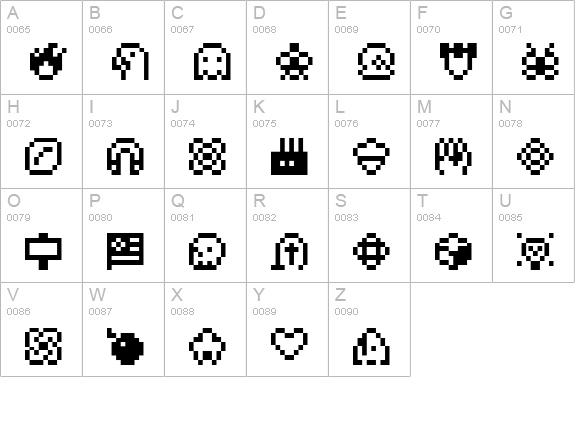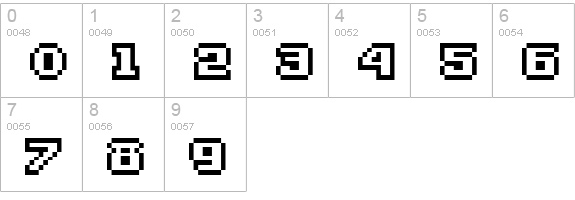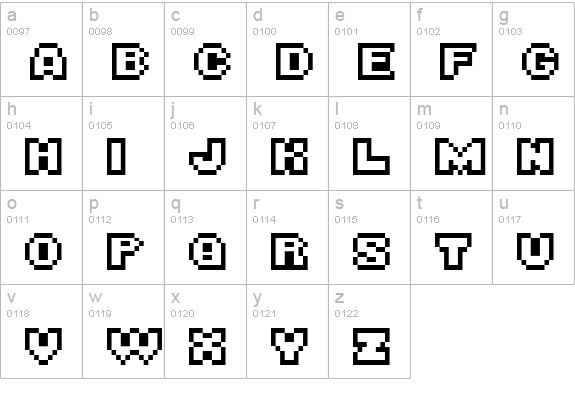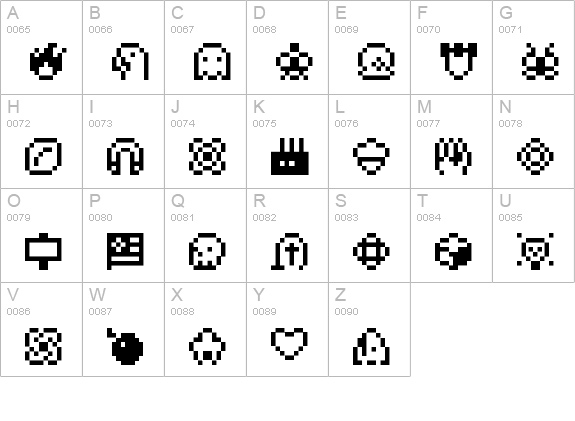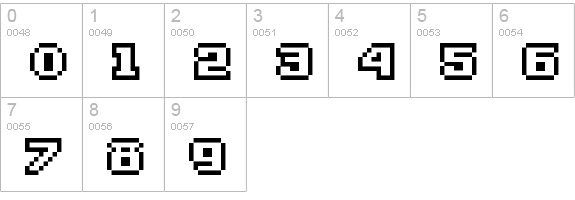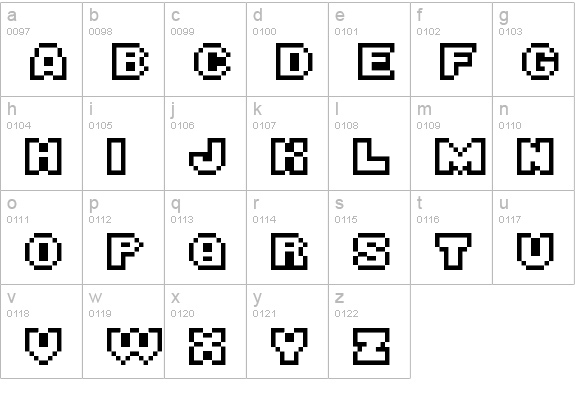
BITSY Font Details
The BITSY font is a charming and playful typeface that exudes a sense of whimsy and creativity. With its rounded edges and quirky details, this font is perfect for adding a touch of fun to any project. Whether you're designing a poster, invitation, or logo, BITSY will bring a delightful and lighthearted vibe to your design. The best part? BITSY is completely free to download at FontsMarket.com, so you can start using this delightful font in your projects right away. Embrace the playful spirit of BITSY and let your creativity shine with this versatile and engaging typeface.